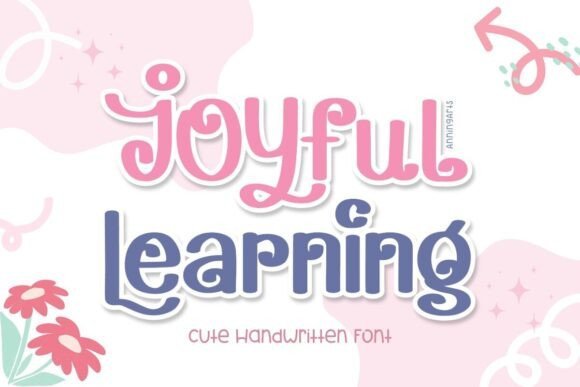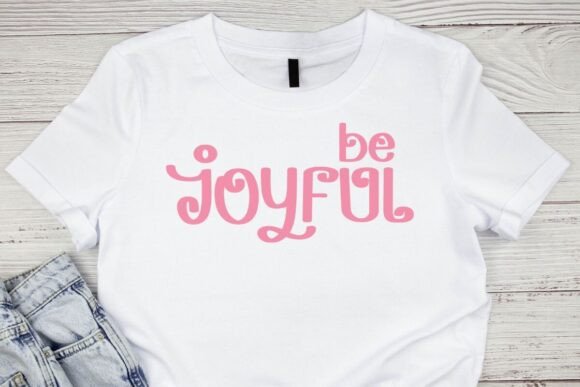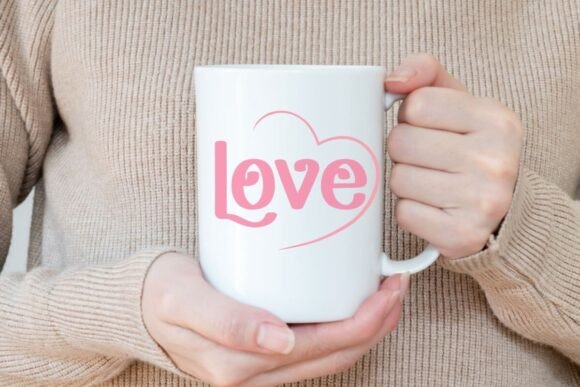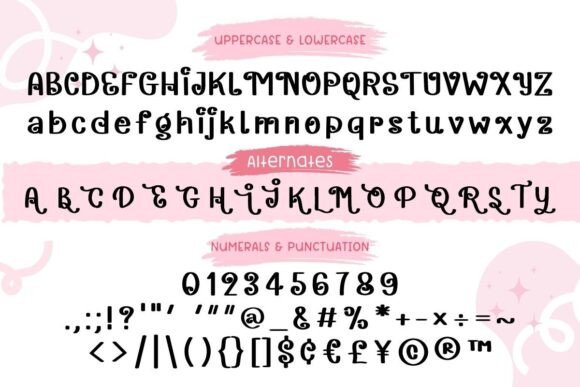
Enter the Joyful Learning Font, a delightful and playful handwritten font that’s sure to bring a smile to your face. With its rounded strokes and friendly character, this font is the perfect addition to any project that needs a cheerful and inviting touch. Whether you’re designing invitations, educational materials, product packaging, or social media graphics, the Joyful Learning Font is a valuable asset that will elevate your designs and leave a lasting impression.
As a designer, you understand the importance of choosing the right font to convey your message and connect with your audience. With its multilingual support and creative variety, the Joyful Learning Font is a versatile tool that will take your designs to the next level.
Key Features of Joyful Learning Font
- Unique Characteristics: The Joyful Learning Font features a playful and whimsical design, making it ideal for educational materials, children’s books, and other projects that require a cheerful tone.
- Unicode Support: The font supports a wide range of languages, including Latin, Cyrillic, and Greek alphabets, ensuring that it can be used for multilingual projects.
- Scalability: The Joyful Learning Font is designed to be highly scalable, allowing it to be used in a variety of contexts, from small text to large headings and titles.
Design Review: Joyful Learning Font
I recently had the chance to work with the “Joyful Learning Font” and I must say it’s a delightful addition to any design project. ✨ The font’s playful and childlike feel makes it perfect for educational materials, children’s books, and even branding for family-friendly businesses. ✨ The font’s versatility also shines through in its ability to work well in both print and digital formats.
One of the standout features of the Joyful Learning Font is its extensive character set. ✨ This includes a wide range of symbols, accents, and even some fun decorative elements. ✨ However, there are a few limitations to consider:
- ⚠️ The font’s bold and italic styles can sometimes feel a bit inconsistent in terms of weight and slant.
- ⚠️ Some users may find the font’s overall style to be a bit too cutesy or childish for certain applications.
Overall, I was really impressed with the Joyful Learning Font and its potential to add a touch of whimsy to any design project. While it may not be the best fit for every application, I would definitely recommend it to anyone looking for a fun and playful font.
Getting the Most Out of the Joyful Learning Font
Use the Joyful Learning Font to create engaging and playful designs that convey a sense of fun and creativity.
Experiment with different font sizes, colors, and styles to create a unique look that suits your design needs.
The Joyful Learning Font is ideal for:
- Creating educational materials (e.g. posters, worksheets, etc.)
- Designing children’s products (e.g. toys, clothing, etc.)
- Developing branding materials (e.g. logos, business cards, etc.)